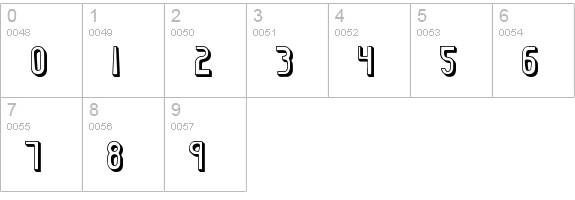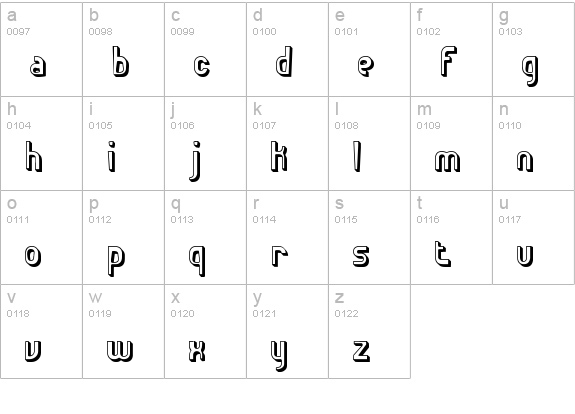
Euphoric 3D BRK font is a captivating display typeface that exudes a sense of energy and excitement. With its bold, three-dimensional design and futuristic aesthetic, this font is perfect for making a statement in your designs. The unique 3D effect adds depth and dimension, giving your text a dynamic and eye-catching appearance. What's even better is that Euphoric 3D BRK font is available for free download at FontsMarket.com. This means you can easily add this striking font to your collection without any cost. Whether you're working on branding, posters, or digital designs, Euphoric 3D BRK font will surely elevate your projects and leave a lasting impression. Don't miss out on this opportunity to enhance your creativity with this stunning and free font!